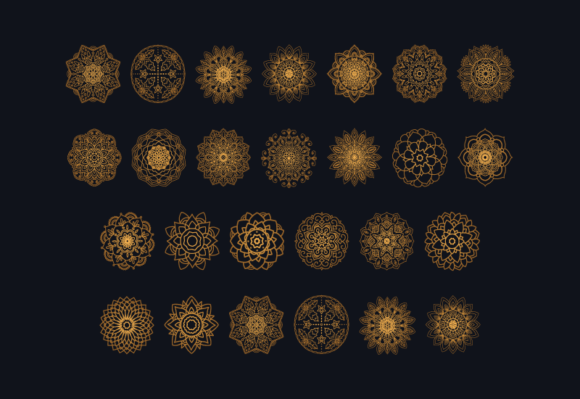
Mandala Font
Mandala is a whimsical and charming decorative font that’s perfect for adding a playful touch to any design project. This font features intricate details, fanciful flourishes, and a childlike sense of wonder that will delight viewers of all ages. Ideal for children’s books, greeting cards, invitations, and more, this font is sure to bring joy and whimsy to your work.
A total of 22 Mandala designs this font.